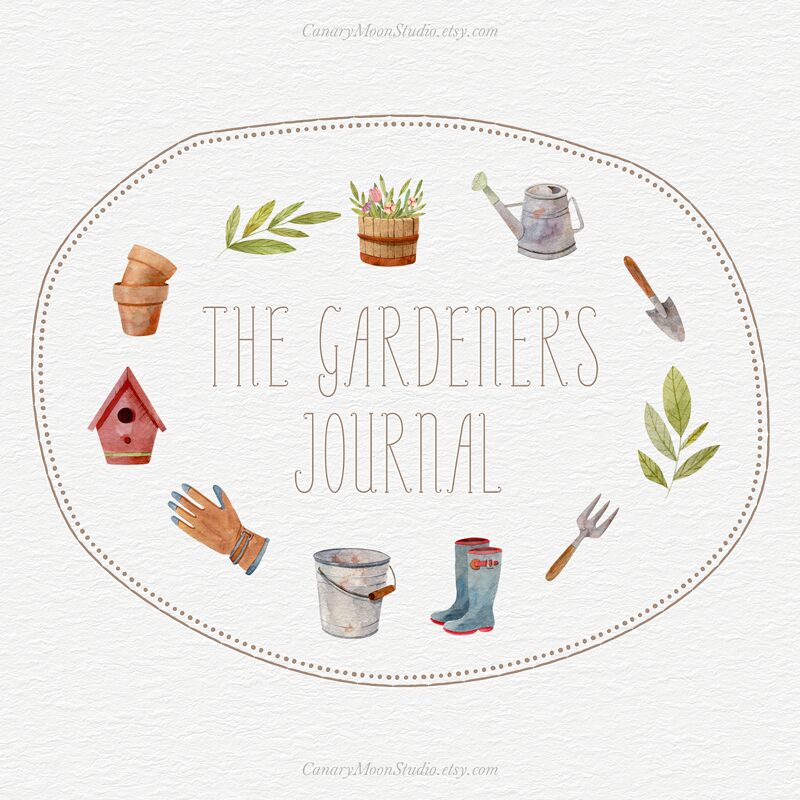
Perle De Rosee, a captivating display font designed by CanaryMoonStudio, exudes an alluring blend of elegance and grace. With its delicate, light-weight strokes and condensed width, this font effortlessly conveys a sense of refinement and sophistication. The graceful curves and intricate details lend an enchanting, almost whimsical quality, evoking a dreamlike ambiance.
Perle De Rosee's versatility makes it a compelling choice for a wide range of design applications. Its distinctive character shines in headlines, titles, and decorative text, adding a touch of ethereal beauty to branding, editorial layouts, and high-end fashion collateral. The font's delicate nature also lends itself beautifully to wedding invitations, stationery, and other projects requiring a touch of romantic flair.